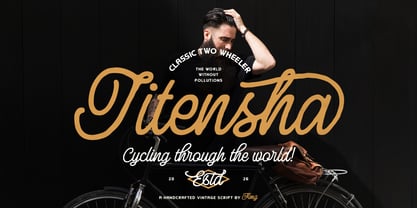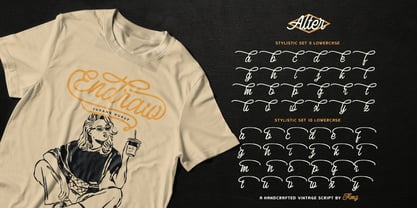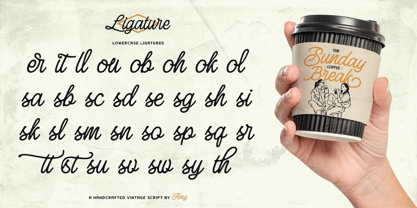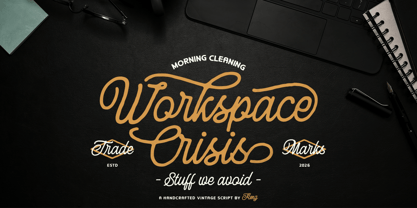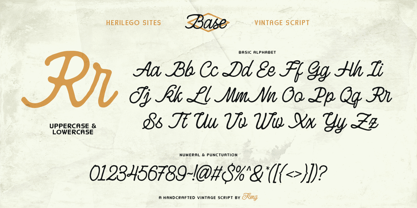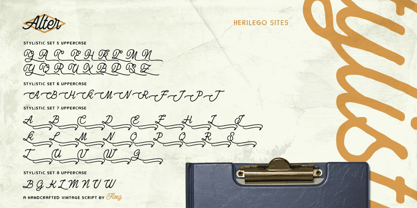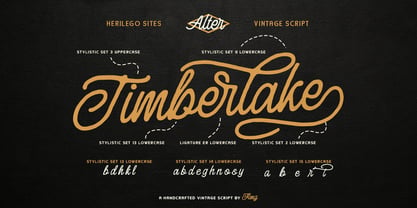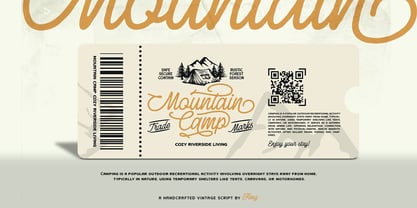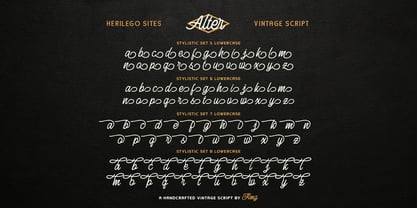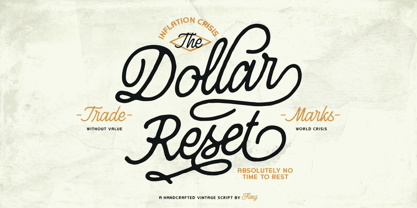
Herilego Sites
by Alit Design
The Herilego Sites Font Family was designed by Alit Suarnegara and published by Alit Design. Herilego Sites contains 1 styles. More about this family
Capture the Essence of Timeless Craftsmanship Introducing Herilego Sites, a premium handcrafted vintage script that seamlessly blends nostalgic elegance with modern versatility. Inspired by classic mid-century signage and artisanal hand-lettering, this typeface is designed for creators who want to add an authentic, "human" touch to their digital designs. Herilego Sites is more than just a font; it is a comprehensive design toolkit. With its fluid strokes and an extensive library of stylistic alternates, this typeface allows you to create custom-looking typography effortlessly. Whether you are aiming for a rugged outdoor vibe or a sophisticated cafe aesthetic, Herilego Sites adapts to your vision. Why Choose Herilego Sites? Massive Stylistic Variety: Featuring over 15 Stylistic Sets for both uppercase and lowercase, giving you endless possibilities to customize your swashes and flourishes. Smart Ligatures: Includes a wide range of natural-looking ligatures (er, th, ll, ou, etc.) to mimic the flow of real handwriting. Rich in Features: Built with OpenType features, it provides seamless access to alternates that make your logos, posters, and branding stand out. Versatile Application: Perfect for branding, vintage-style logos, apparel design, coffee shop menus, wedding invitations, and social media quotes. What’s Included: Herilego Sites Base: The core vintage script. Herilego Sites Alter: A variation packed with unique stylistic characters. Full set of Numerals & Punctuation. Multilingual Support. Bring a sense of heritage and hand-finished quality to your next project with Herilego Sites.